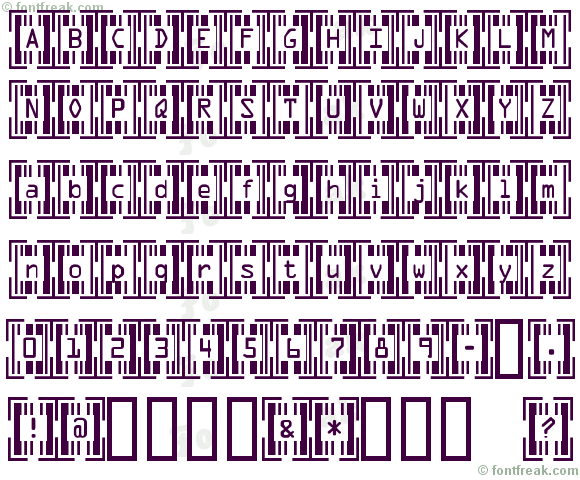
Recognition Nekkid
Recognition
Recognition Nekkid — Character Map
Recognition — Character Map
About Recognition
The Recognition font by Whoami Design is a unique display typeface that merges creativity with functionality. This freeware font features an innovative design that employs a series of bar-like structures, giving it a modern, tech-inspired aesthetic. The visual characteristics of the Recognition font include bold stroke weights and a uniform contrast that captures attention, while the spacing between characters adds to its readability. The decorative elements, reminiscent of barcode patterns, lend the font a distinct personality that stands out in various applications.
This font is particularly well-suited for specific use cases, such as branding for tech startups, promotional materials for modern art exhibitions, and eye-catching headlines on websites. It can also be effectively utilized in creative business cards or as a standout element in social media graphics. Graphic designers will find the Recognition font to be a versatile tool for creating visually stunning projects, while small business owners can use it to craft memorable branding that resonates with their target audience.
The target audience for this font includes graphic designers, small business owners, and content creators looking to make a bold statement. Its unique style can elevate any design project, making it an excellent choice for those who want to push creative boundaries.
What sets the Recognition font apart is its remarkable ability to blend artistic flair with practicality. Its distinctive design elements not only enhance visual appeal but also serve to communicate a modern, innovative brand identity. For anyone seeking a fresh typeface that embodies originality, the Recognition font free download is an opportunity not to be missed. This font stands ready to transform your design projects into something truly memorable.